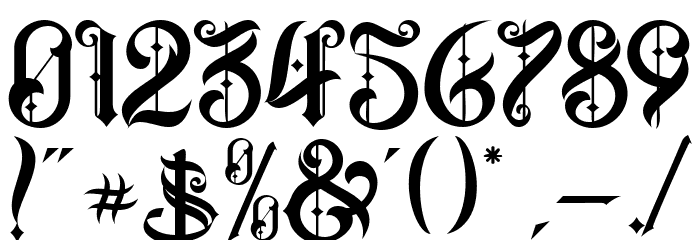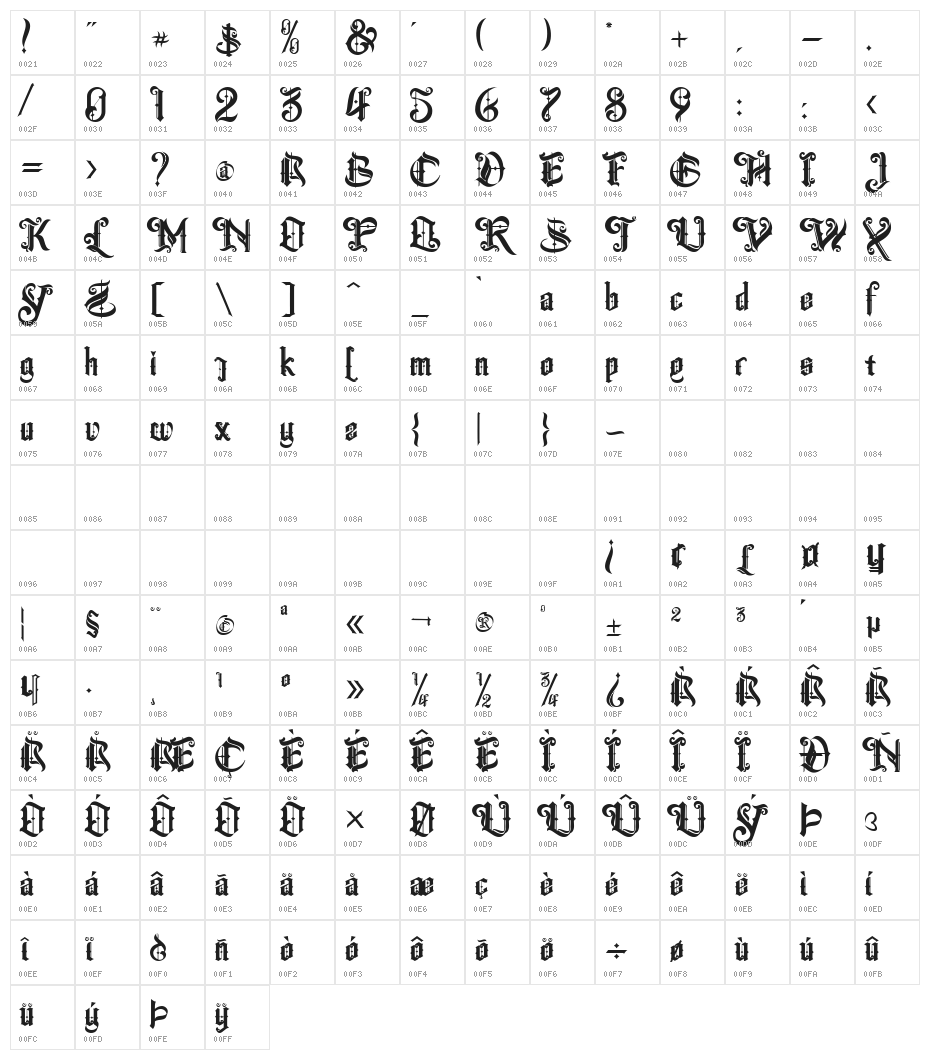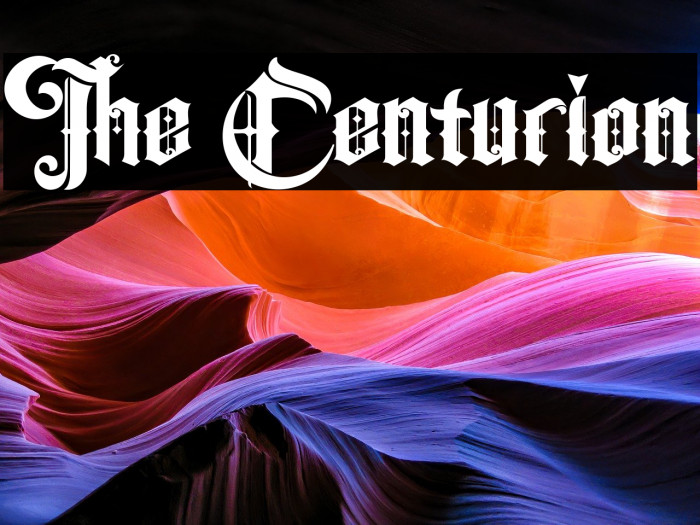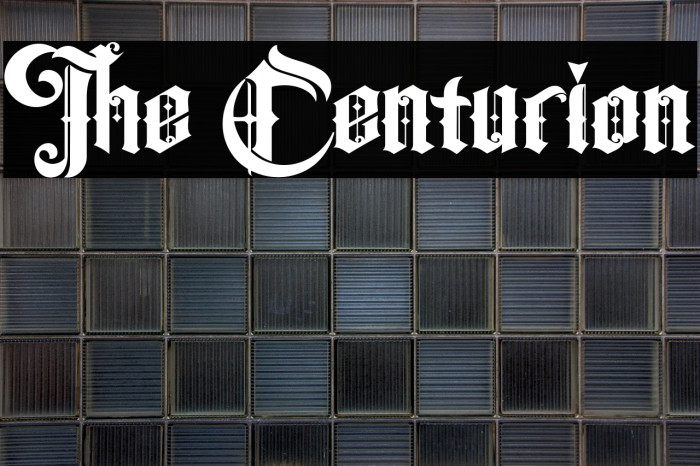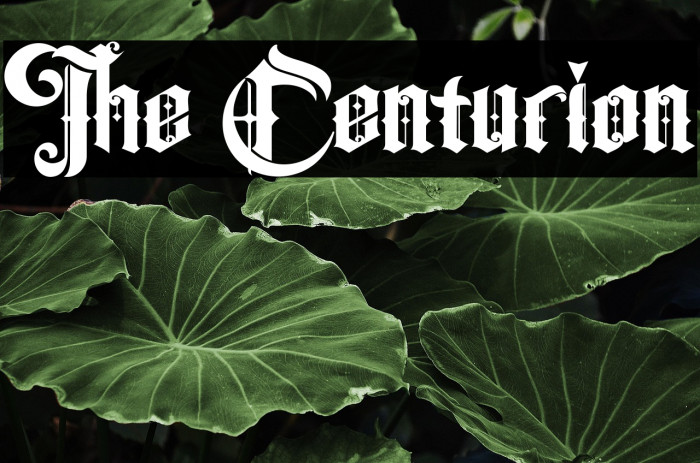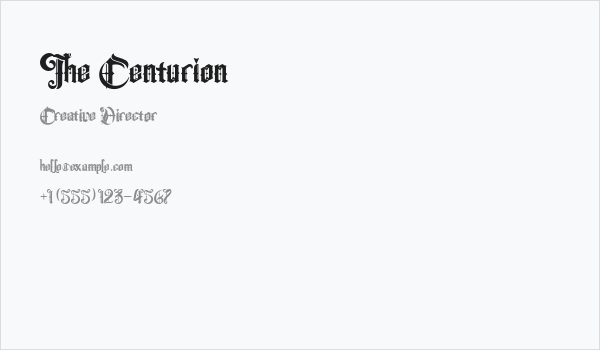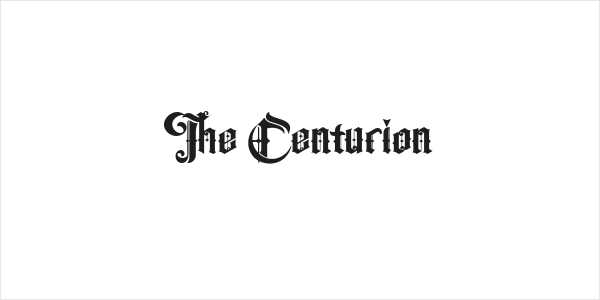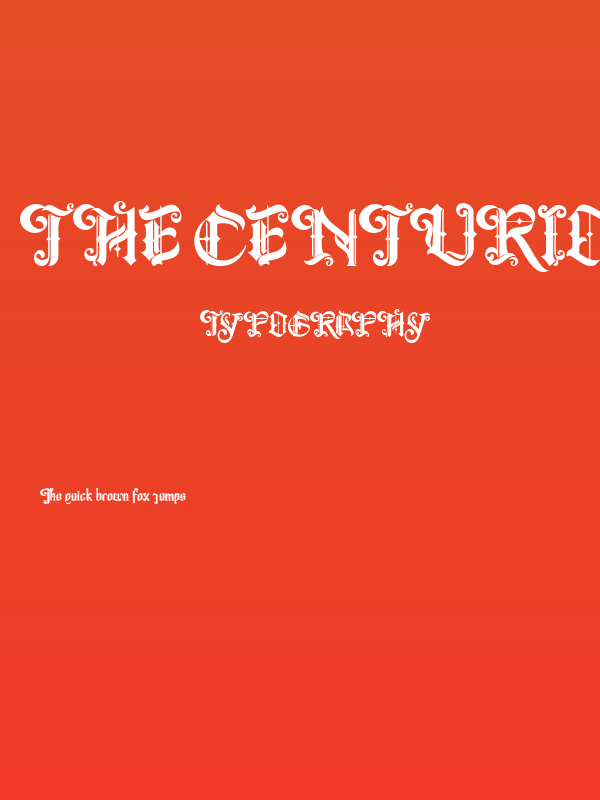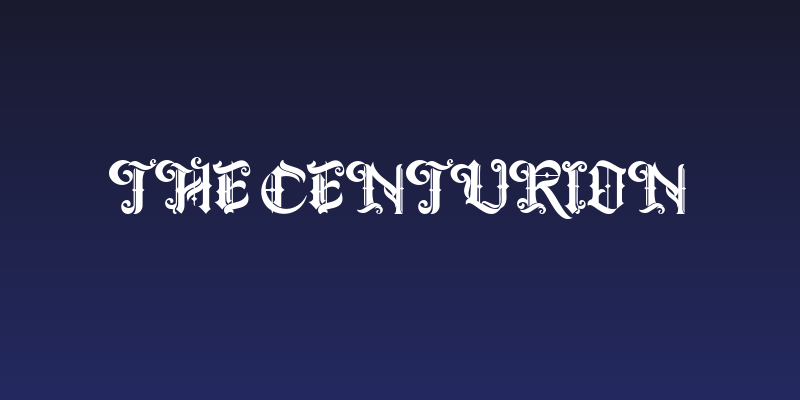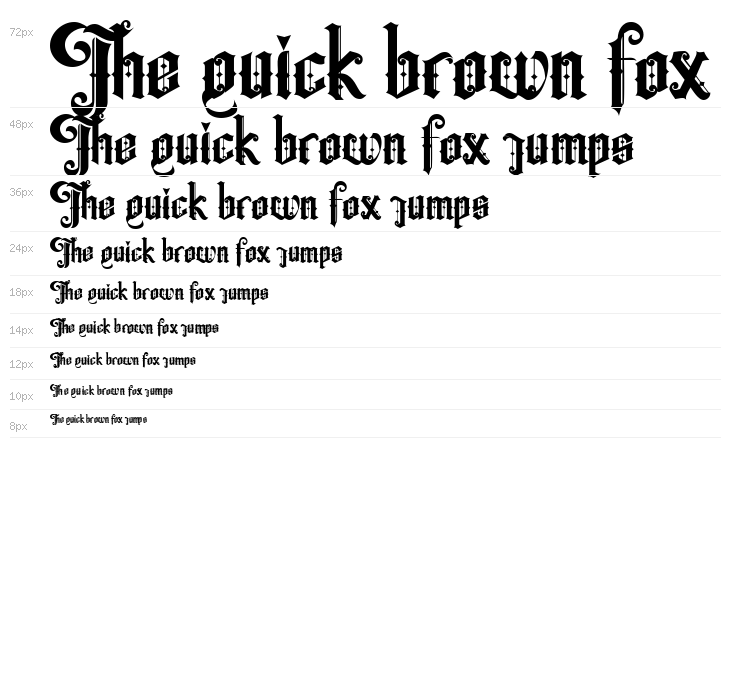
The Centurion Font
The Centurion Description
This font exhibits a bold and intricate design, reminiscent of medieval script with elaborate flourishes and sharp edges. The uppercase letters are adorned with decorative elements that give them a regal and authoritative appearance. The lowercase letters maintain the ornate style, with consistent stroke weight and angular forms. Numbers and special characters follow the same elaborate design, ensuring a cohesive look across all glyphs. The font's blackletter style is both traditional and striking, making it ideal for projects that require a historical or gothic aesthetic.
| Proposed Projects | Ideal for historical documents, gothic-themed designs, book covers, posters, and branding that requires a medieval or vintage touch. |